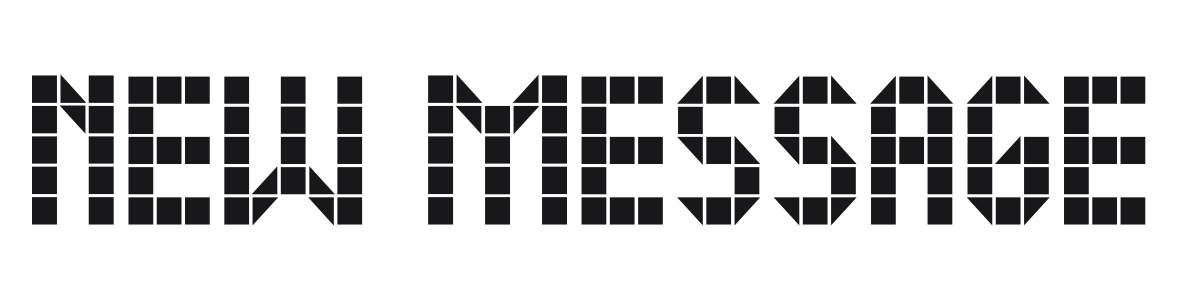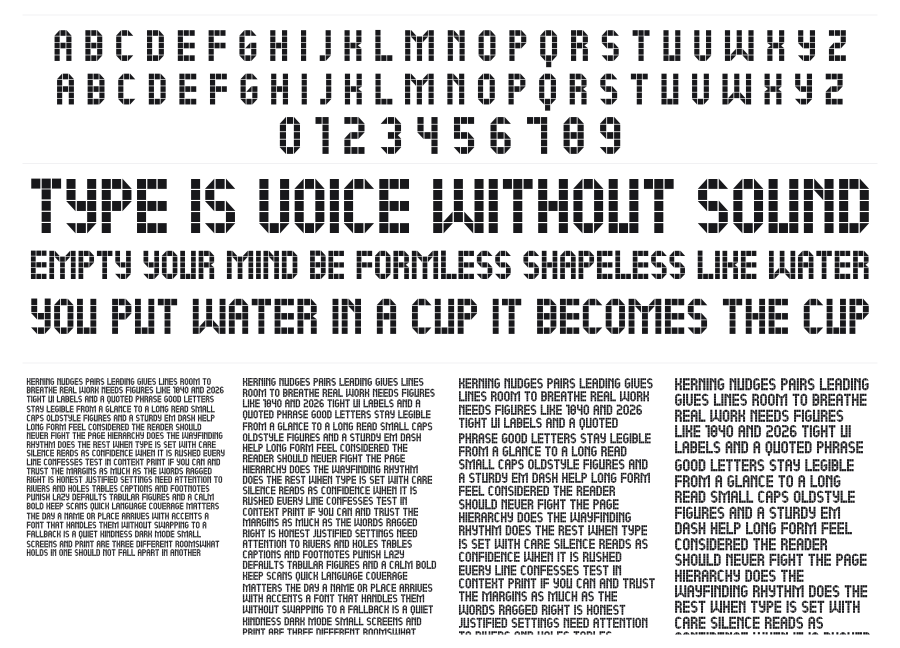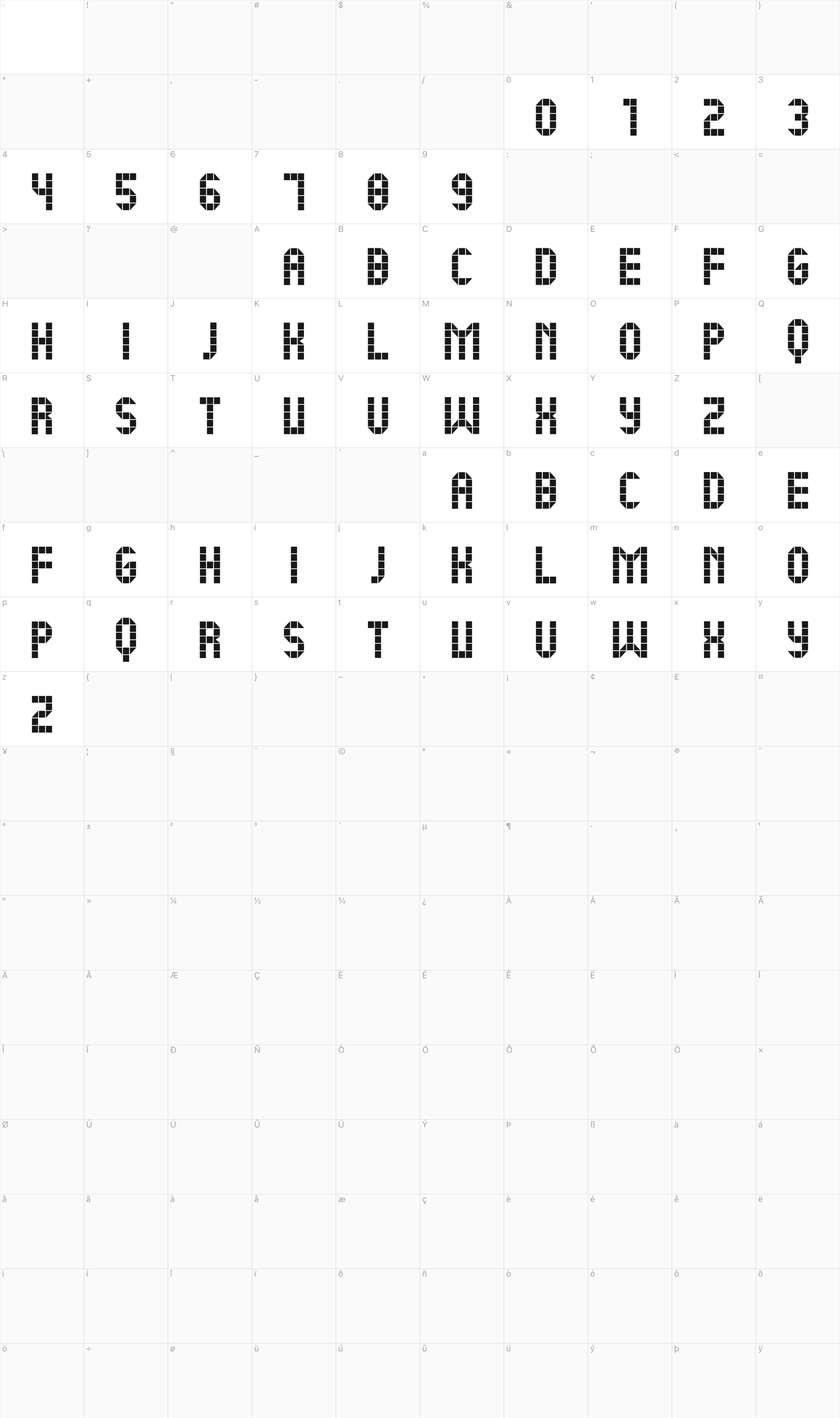
New Message
New Message is a bold modular display font built from a grid of small squares, mimicking an LED matrix or scoreboard display. Every character is constructed from discrete square units with no stroke variation whatsoever, giving the whole typeface a heavy, pixelated texture. It fits naturally in gaming, streetwear, and tech contexts where a digital-retro edge is the point.